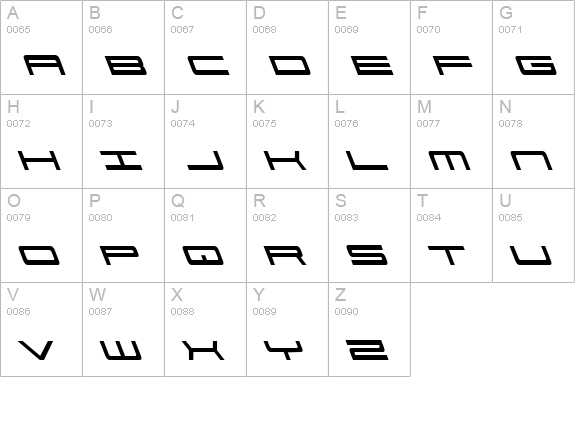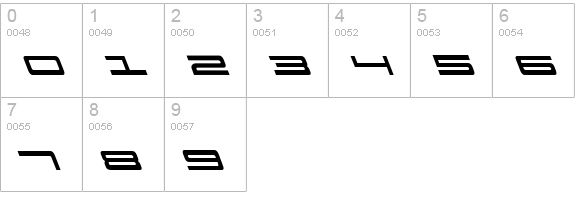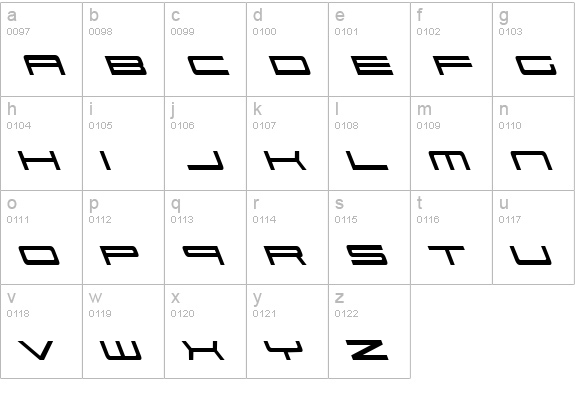
911 Porscha Leftalic Font Details
911 Porscha Leftalic font is a sleek and modern typeface that exudes sophistication and elegance. With its unique italic design and sharp angles, this font adds a touch of luxury to any project it is used in. The bold strokes and clean lines make it perfect for creating eye-catching headlines or stylish branding materials. What's even better is that 911 Porscha Leftalic font is available for free download at FontsMarket.com. Whether you're designing a website, creating marketing materials, or working on a personal project, this font is sure to elevate your design and make a lasting impression. Download it now and add a touch of luxury to your next project!